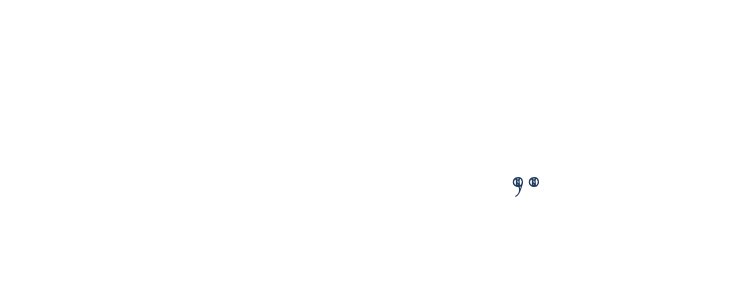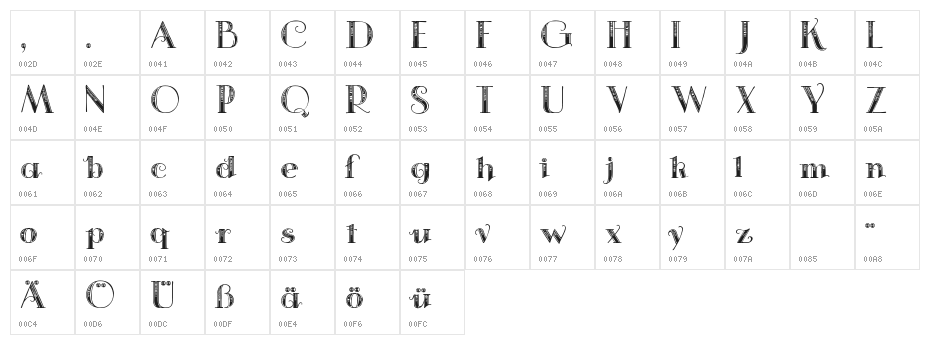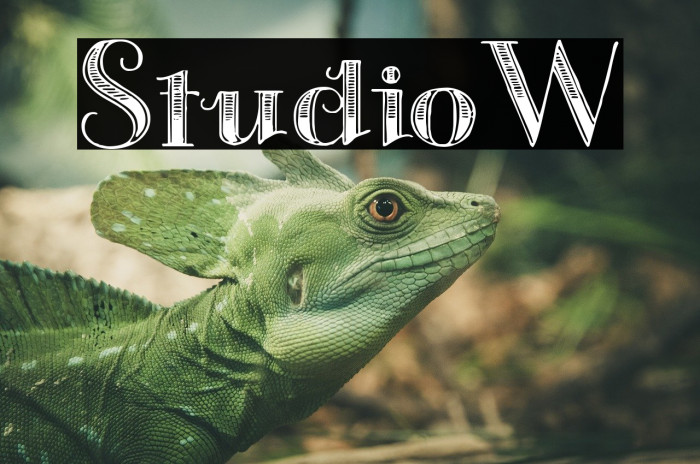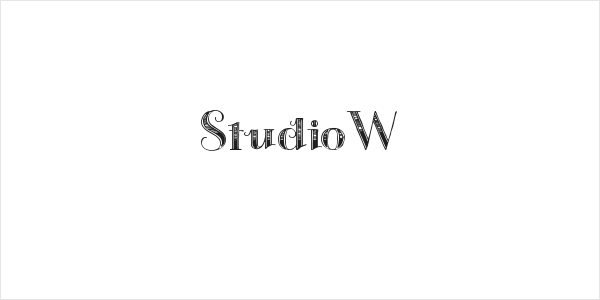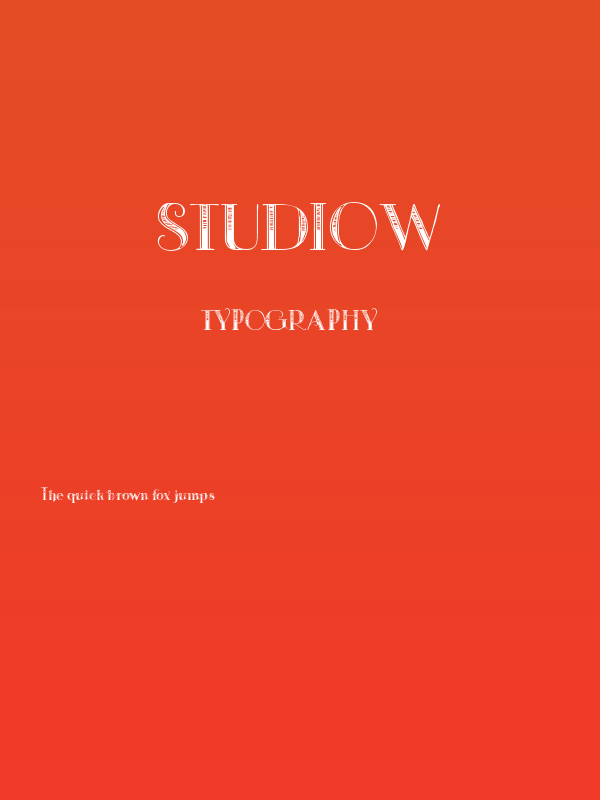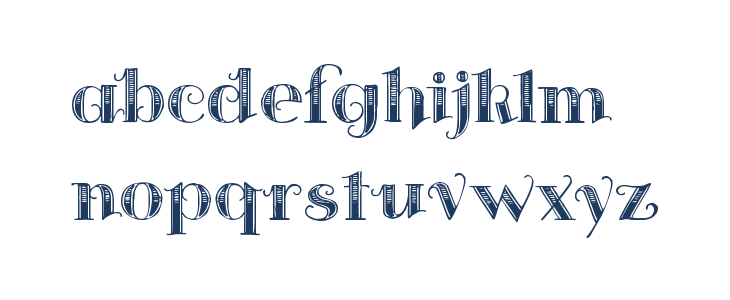
StudioW Font
StudioW Description
This font features a unique blend of modern and vintage styles, characterized by its decorative and intricate detailing. The uppercase letters exhibit a bold presence with vertical lines and subtle curves, creating a sense of elegance and sophistication. The lowercase letters maintain a consistent style, offering a harmonious balance between the upper and lower cases. The numerals and special characters are designed to complement the overall aesthetic, making this font versatile for various design needs. Its distinct appearance makes it suitable for projects that require a touch of class and creativity.
| Overall Style | Modern Vintage |
| Use Case | Headlines, Logos, Invitations |
| Proposed Projects | Ideal for branding, packaging, invitations, and editorial design where a sophisticated and creative touch is desired. |